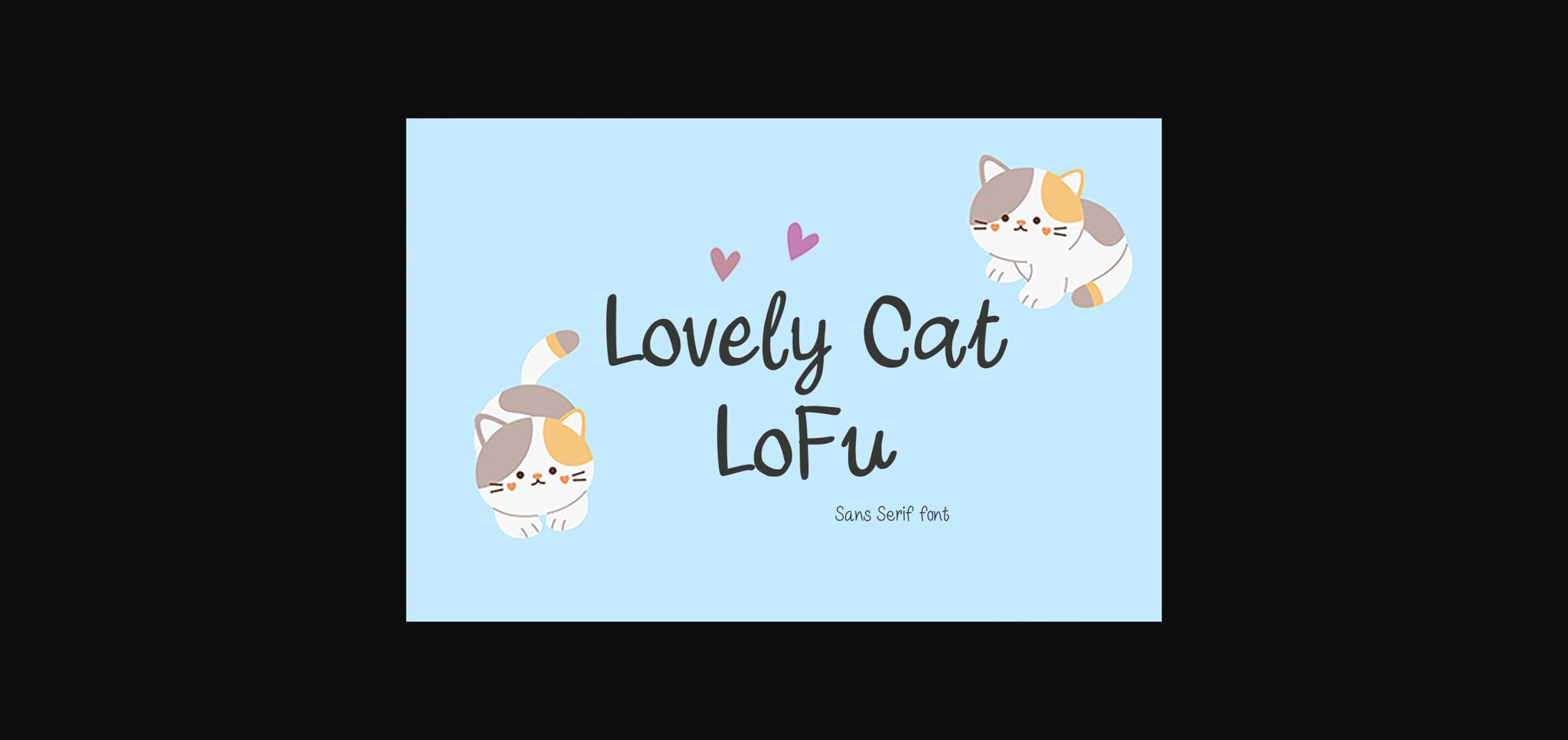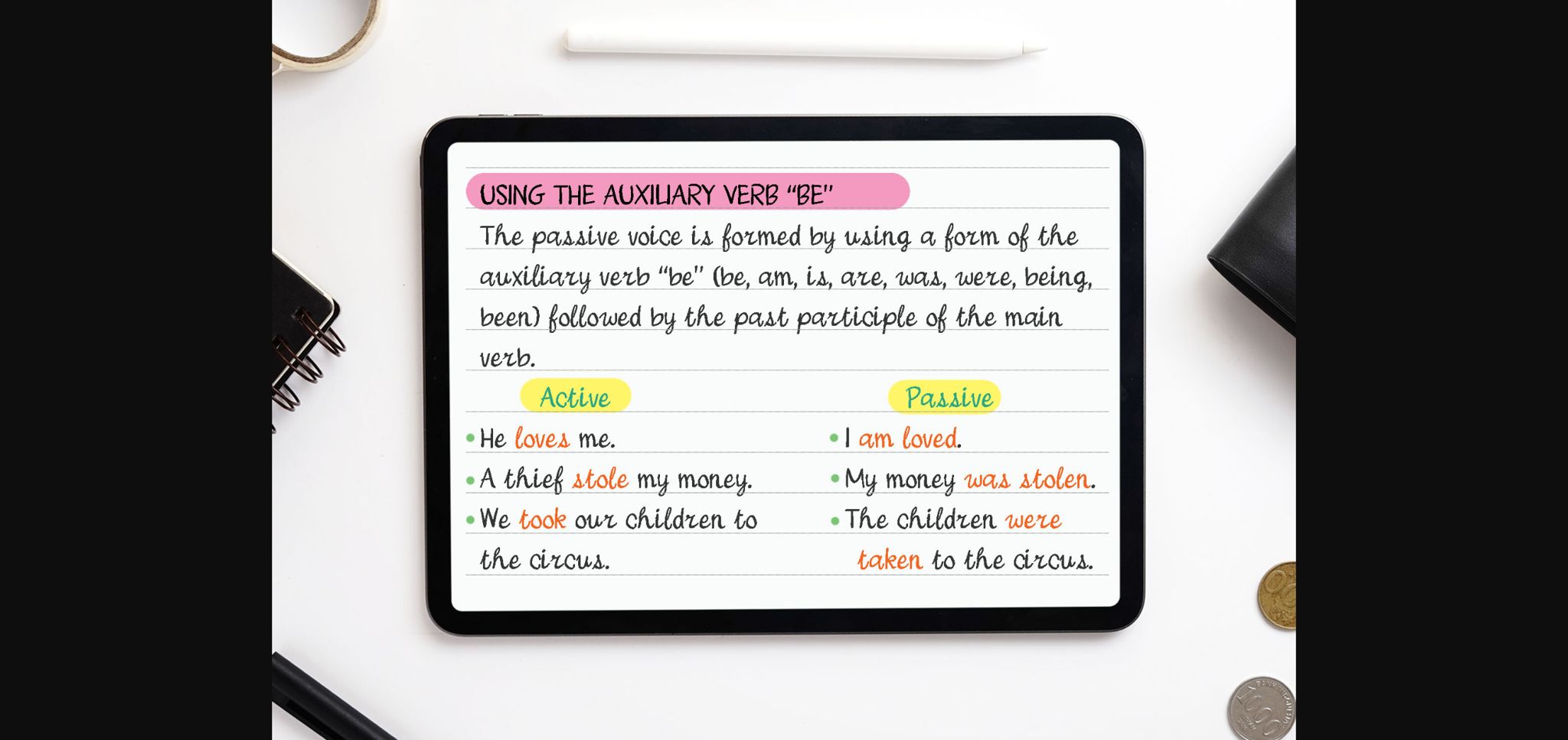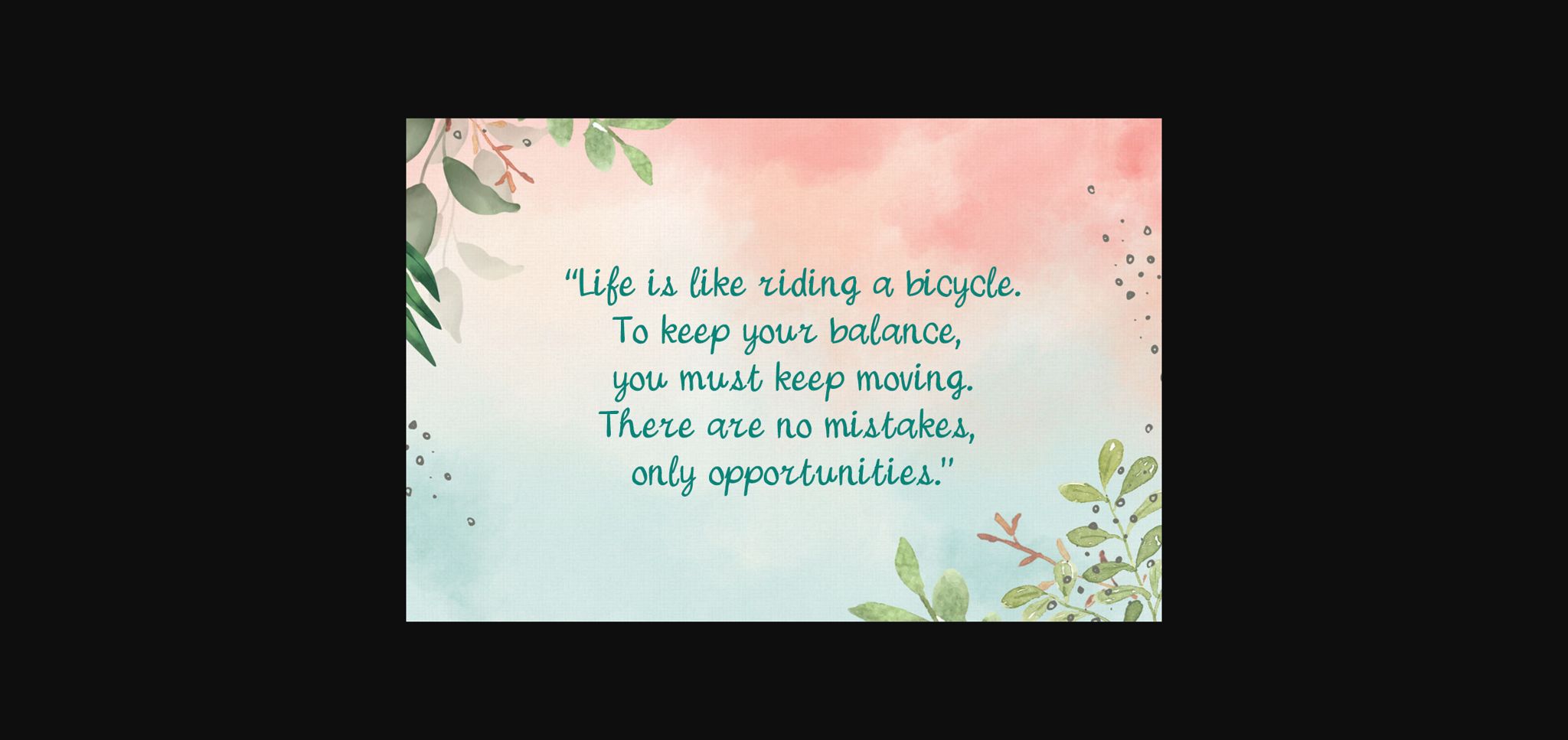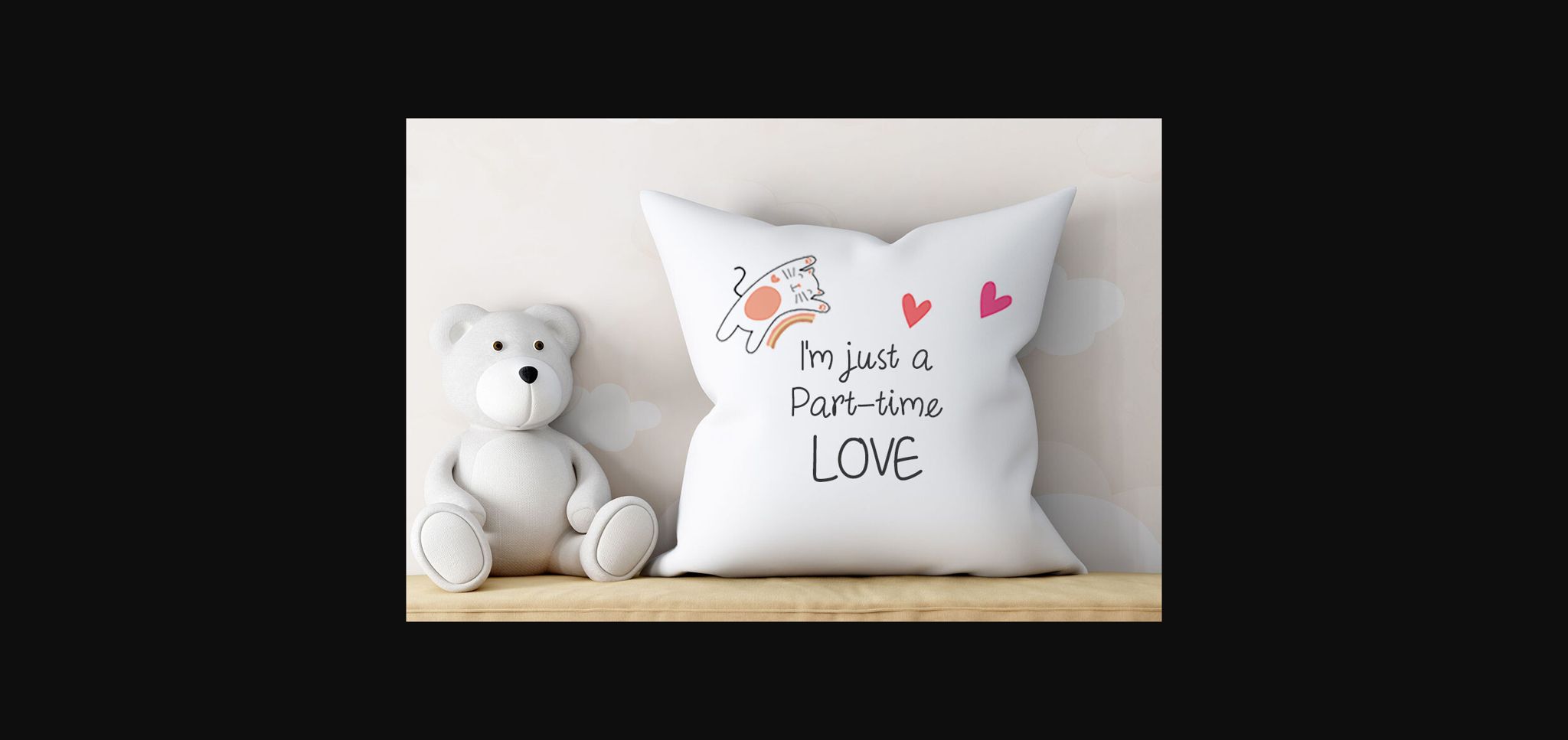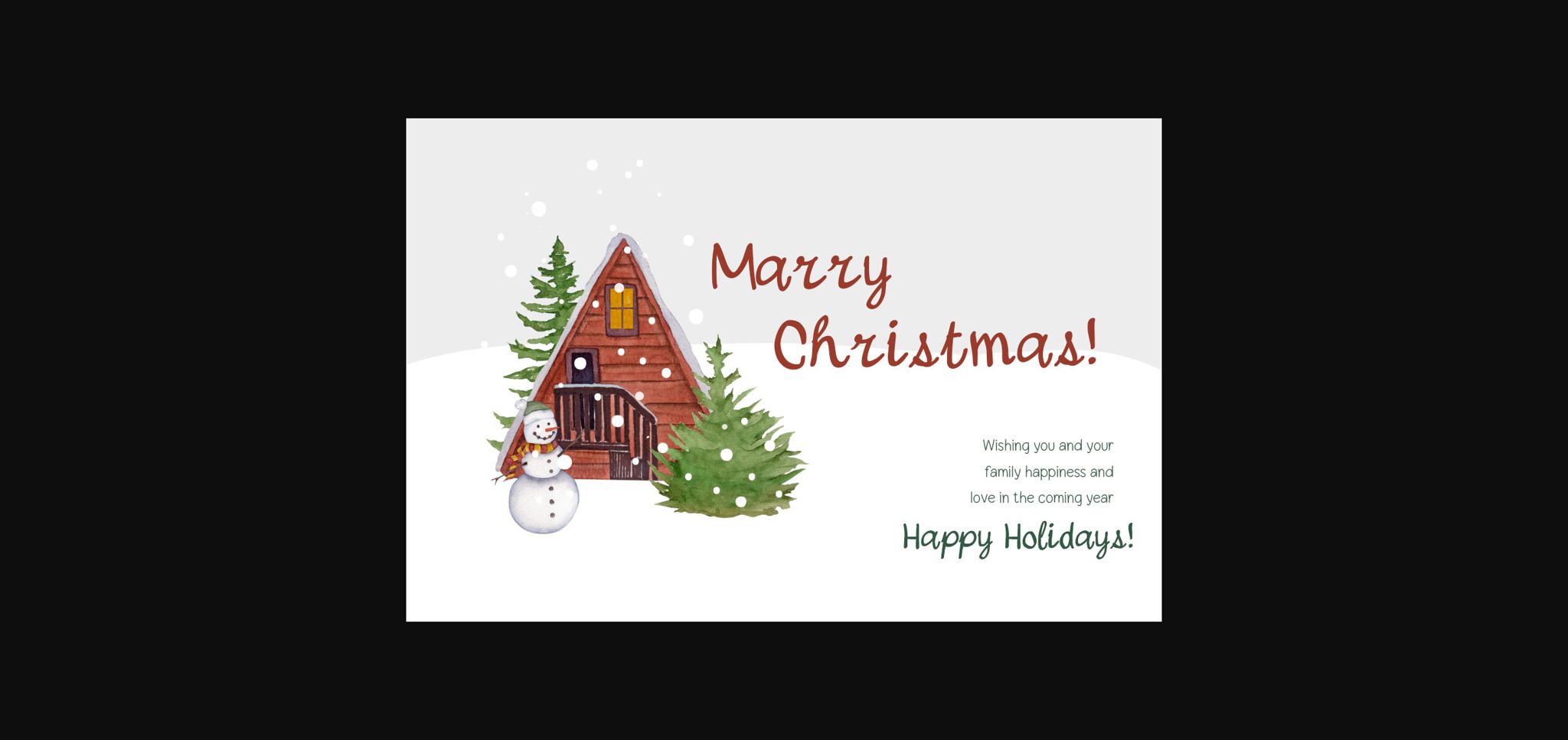
About Lovely Cat Lofu Font
Lovely Cat LoFu is designed in a cute, cheerful and playful sans serif font style. It would be awesome to your fun projects or diary planner, on wedding invitations, thank you cards, quotes, greeting cards, logos, posters, blogs, bag, T Shirt, clothing and other designs.